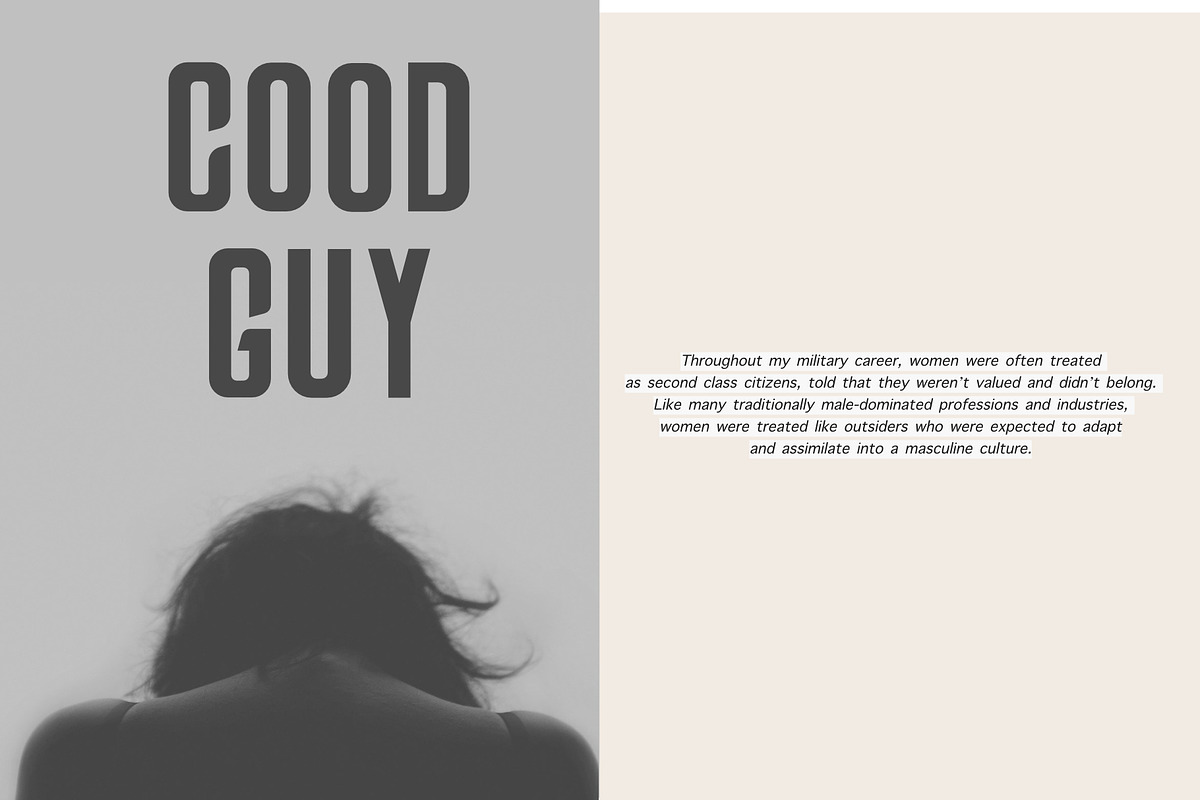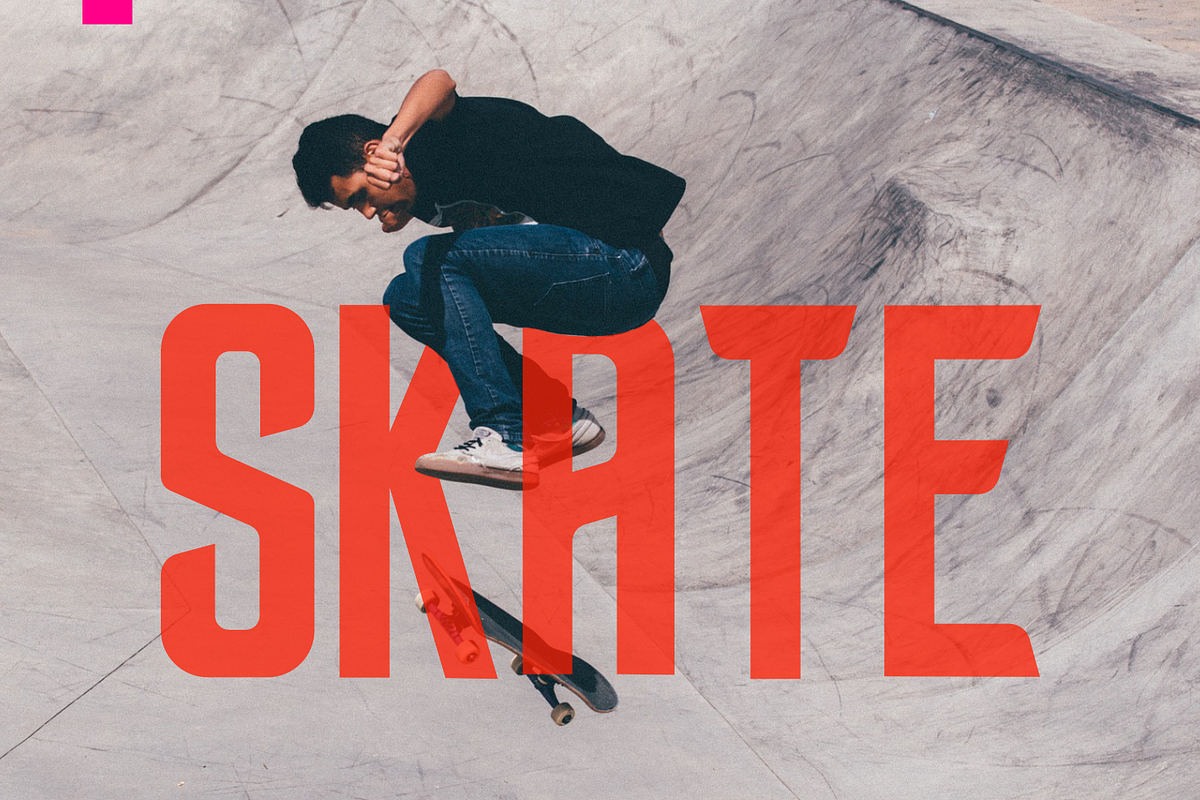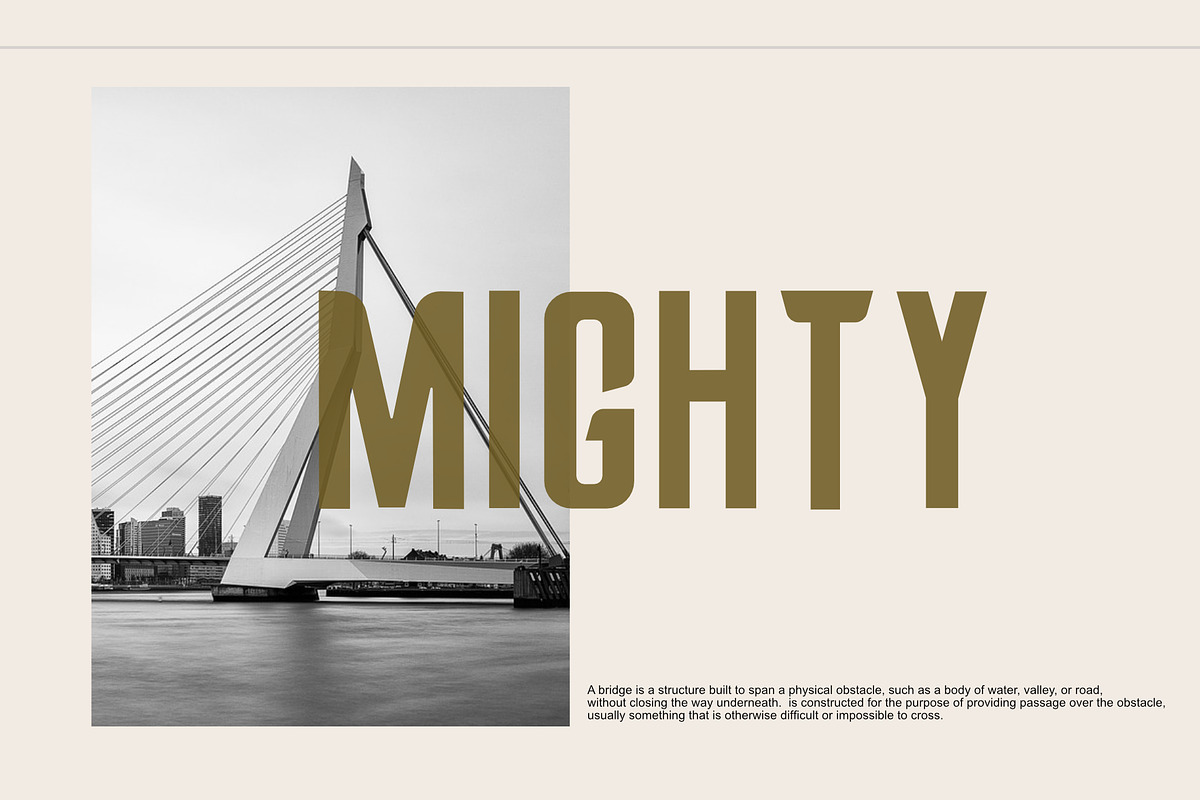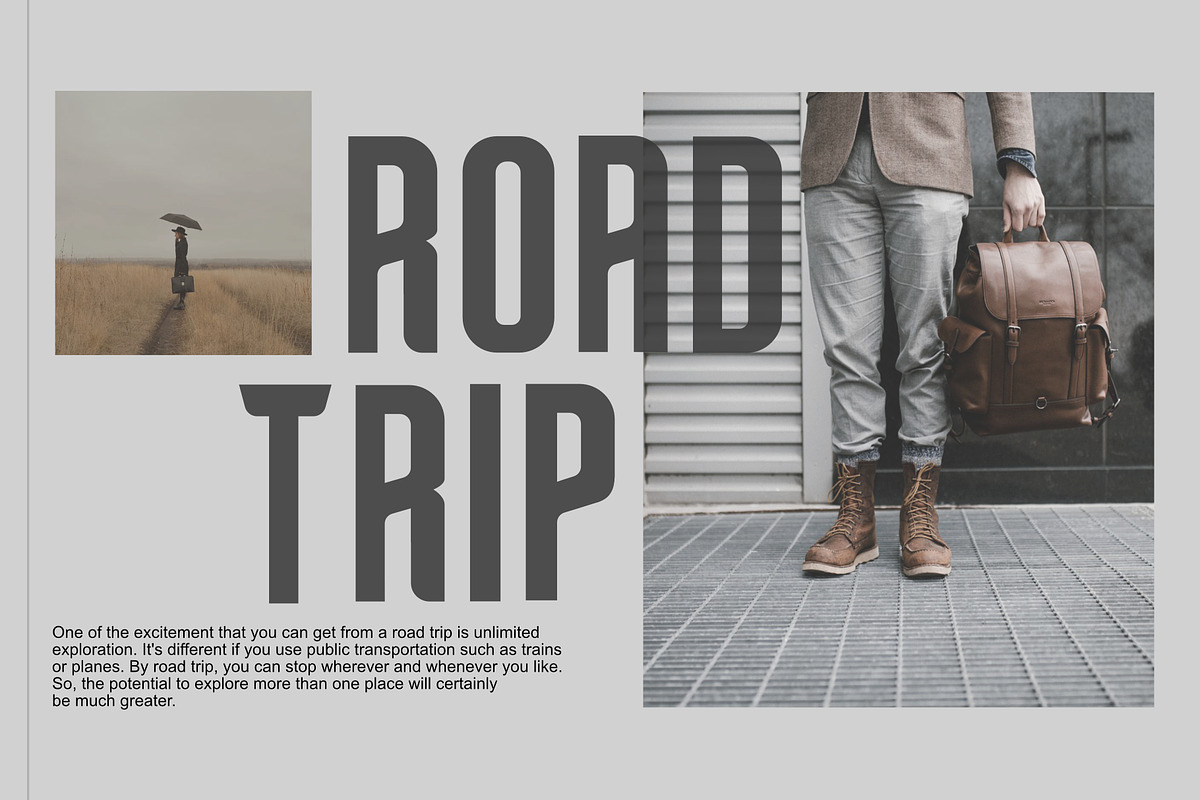
About Bugis Classy Modern Font
BUGIS is a bold and condensed display font featuring a modern, classy, and powerful style. Perfect for logos, branding, posters, headlines, and editorial designs.
Ideal Usage
- — Brand Identity & Logotypes
- — Editorial Headlines & Magazines
- — Product Packaging & Labels
- — Posters, Titles & Book Covers